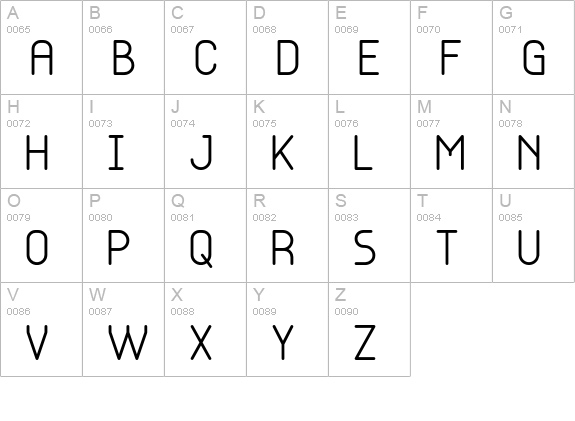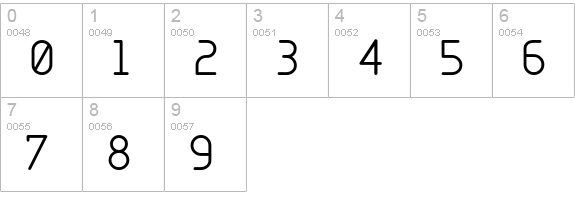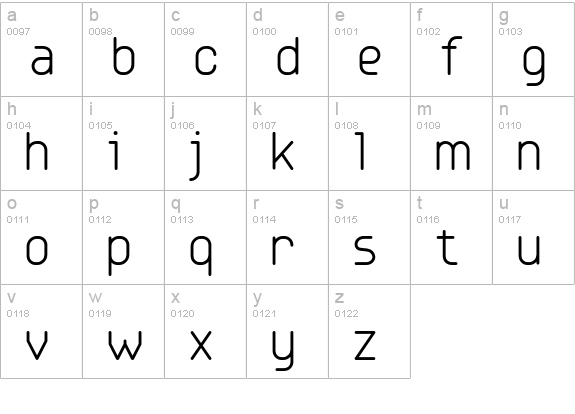
Base4 Font Details
Introducing Base4 font - a modern and versatile typeface that is perfect for a wide range of design projects. This unique font features clean lines and a sleek design that exudes professionalism and sophistication. With its bold and contemporary style, Base4 font is sure to make a statement in any design. What sets Base4 font apart is its versatility - whether you're creating a logo, branding materials, posters, or any other design project, this font will elevate your work to the next level. Its clean and elegant aesthetic makes it a perfect choice for both digital and print projects. And the best part? Base4 font is completely free to download at FontsMarket.com. That's right, you can access this amazing font at no cost and use it in your projects without any restrictions. Don't miss out on this fantastic opportunity to enhance your designs with the stylish and modern Base4 font. Download it now and take your work to new heights!